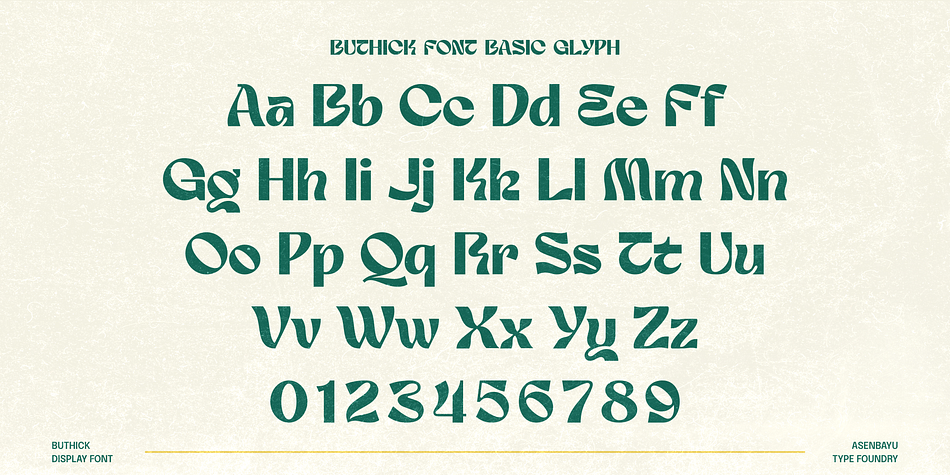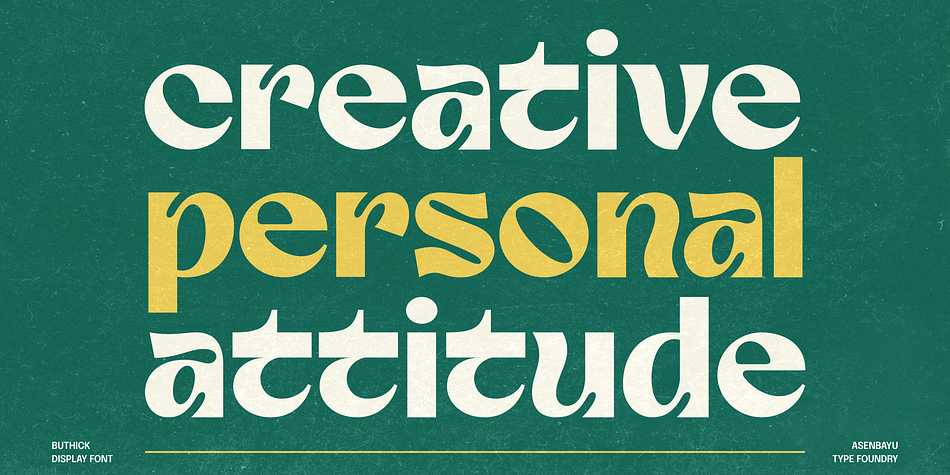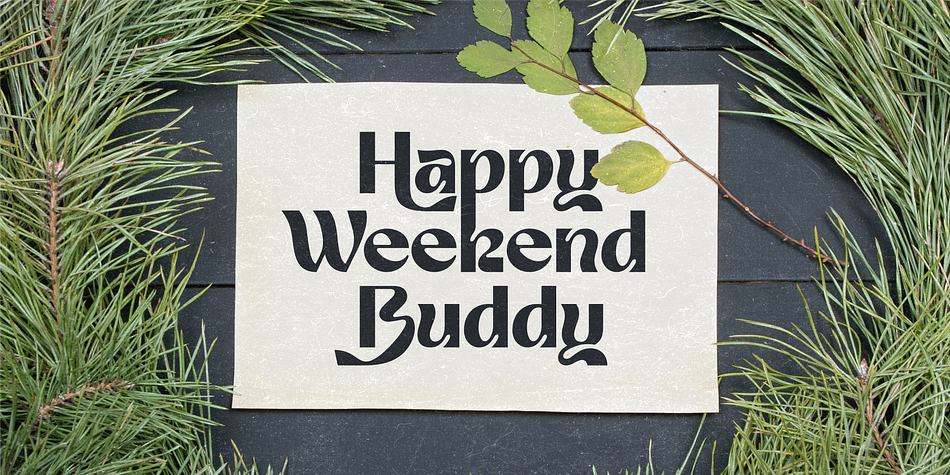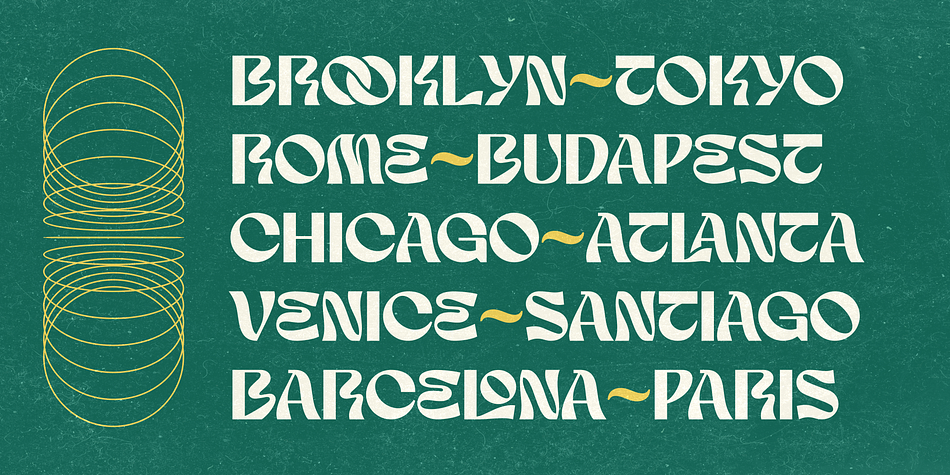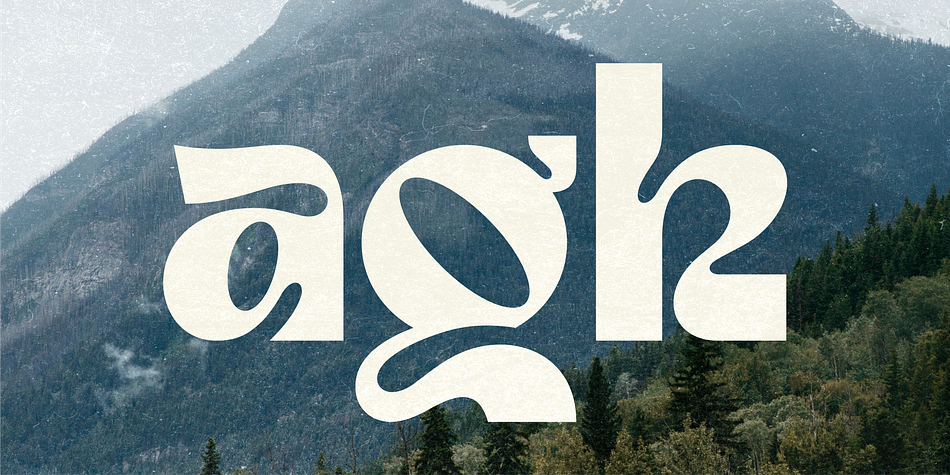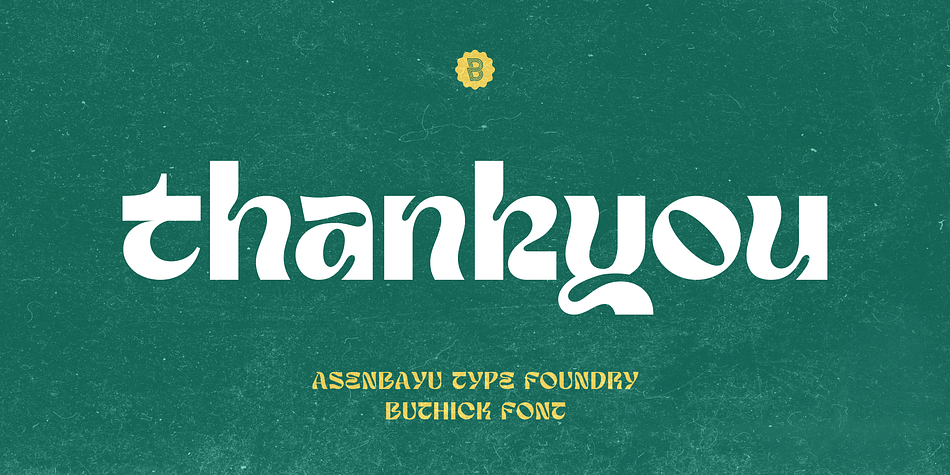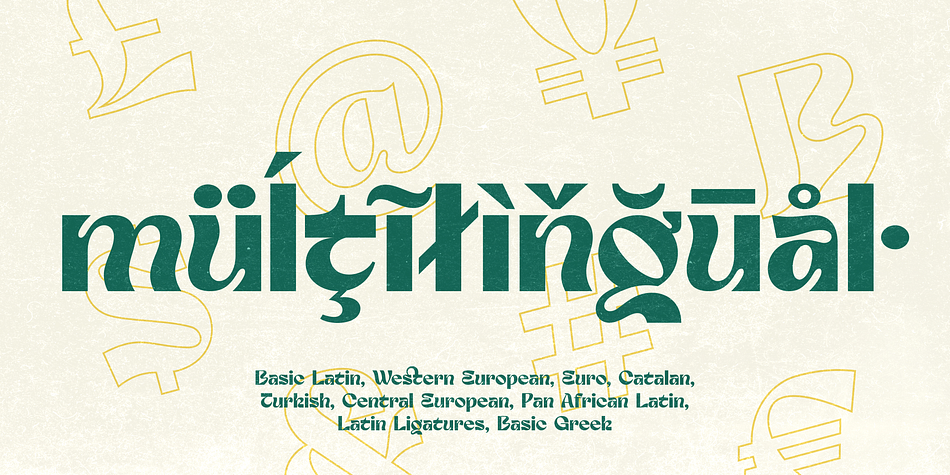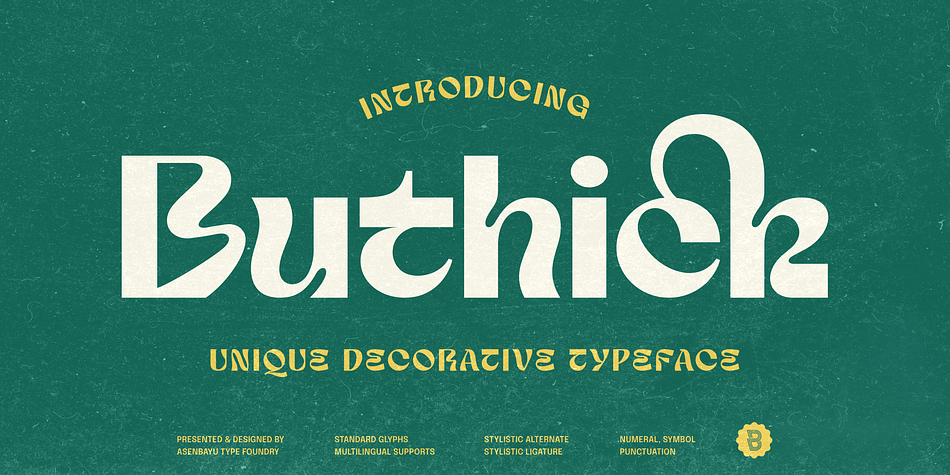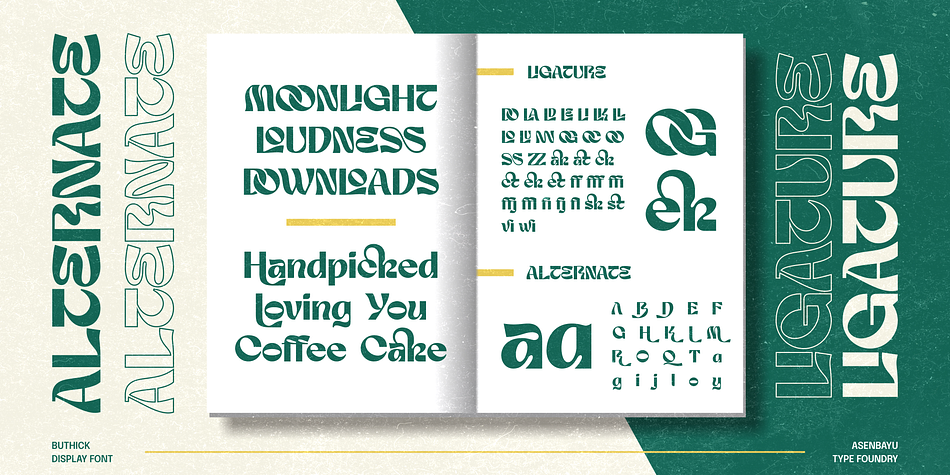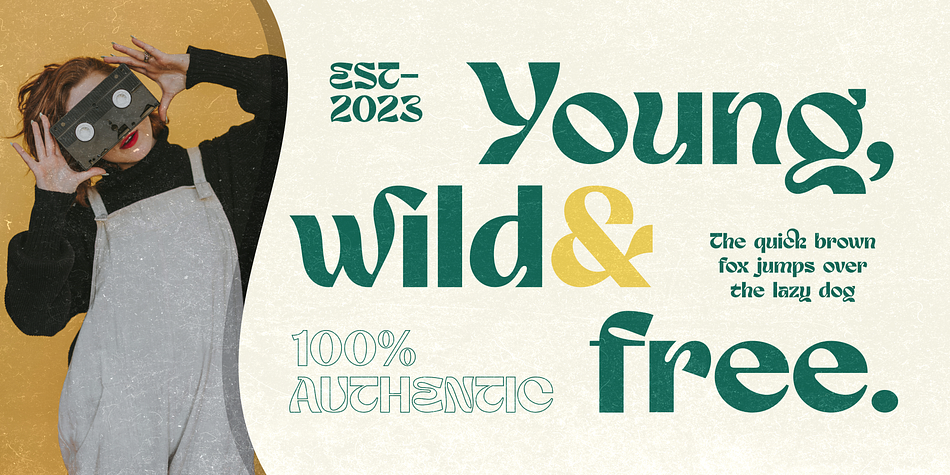
Buthick
Buthick is a sans serif font family published by Asenbayu.
Buthick is a unique decorative display font. This font is characterized by being bold and conveys a pleasant image. This font also has a modern feel with a sans serif outline. You can use this font in both modern and retro designs. This font is suitable for trendy packaging label designs, unique desired logos, poster designs, fashion and many more.
- Stylistic Alternate & Ligature